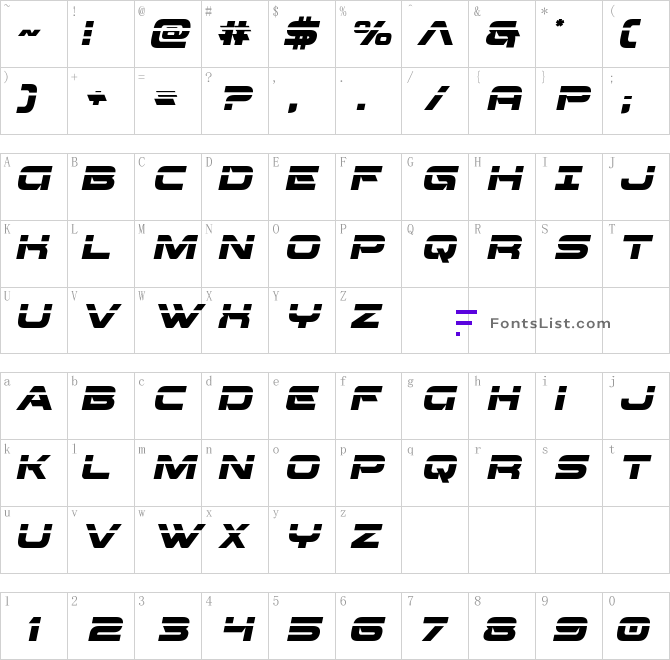
• Font Name:Beam Weapon Laser Italic
• Subfamily:Italic
• Subfamily:Beam Weapon Laser Italic: 2015
• Full Name:Beam Weapon Laser Italic
Beam-Weapon-Laser-Italic.ttf is a very beautiful artistic font, Beam-Weapon-Laser-Italic.ttf is widely used in the design and printing of various books and pictures,Beam-Weapon-Laser-Italic.ttf has a strong visual impact,Beam-Weapon-Laser-Italic.ttf is a commonly used font in newspapers, magazines and books, and is used in posters, e-commerce Poster design, store design, logo design, font design and other fields.Beam-Weapon-Laser-Italic.